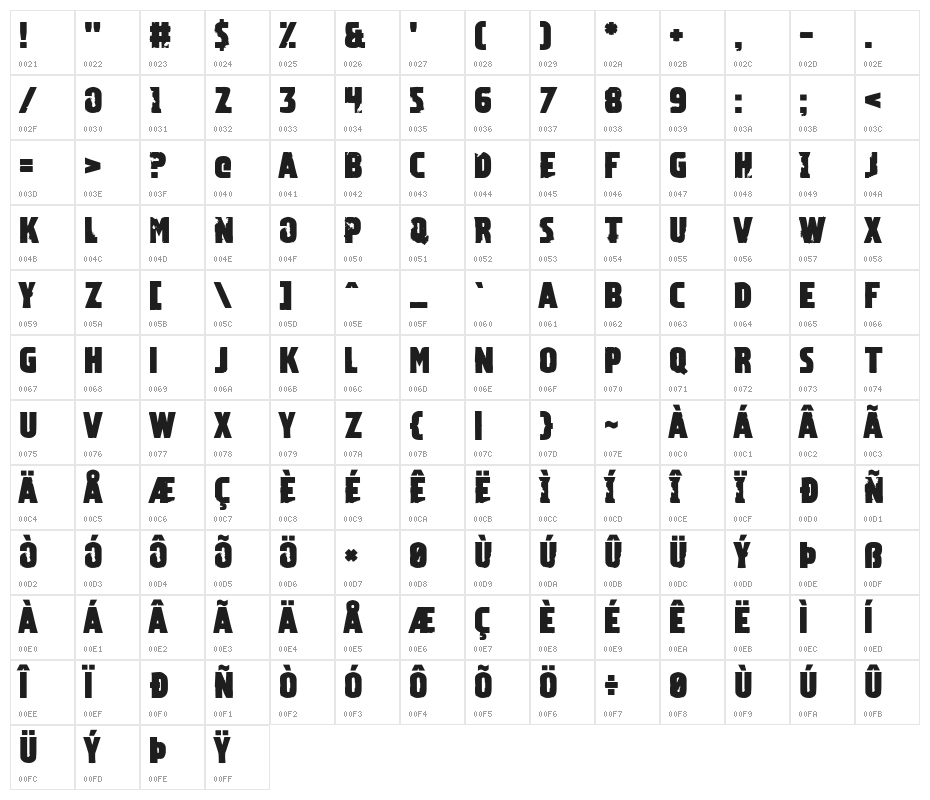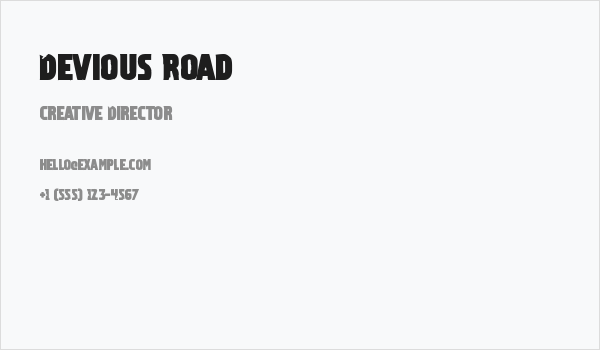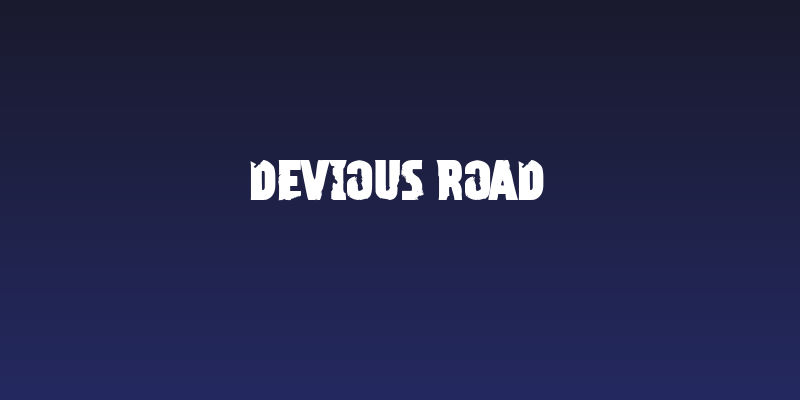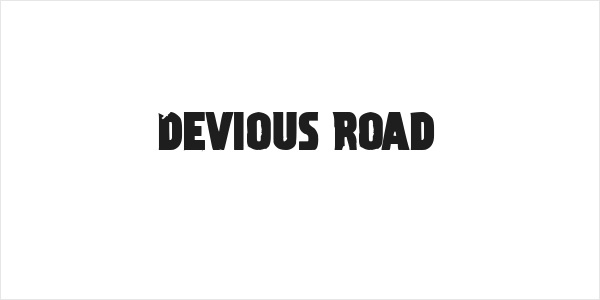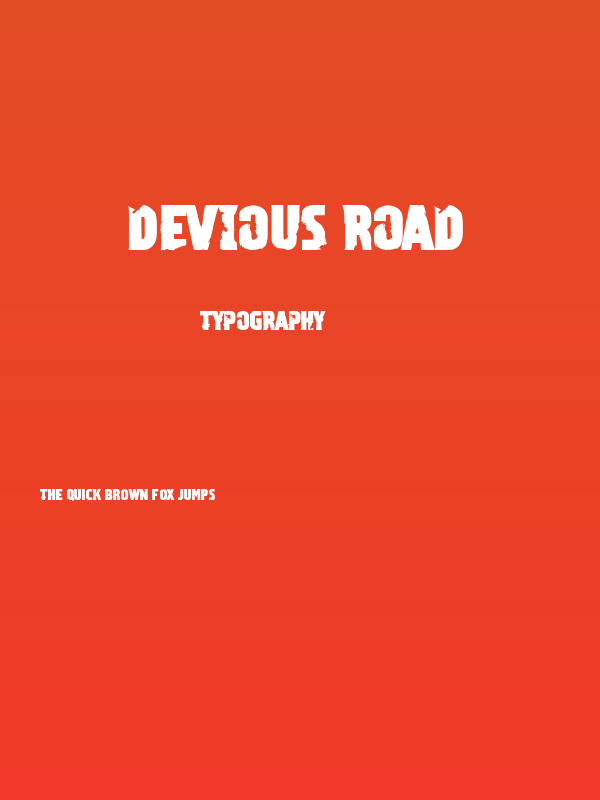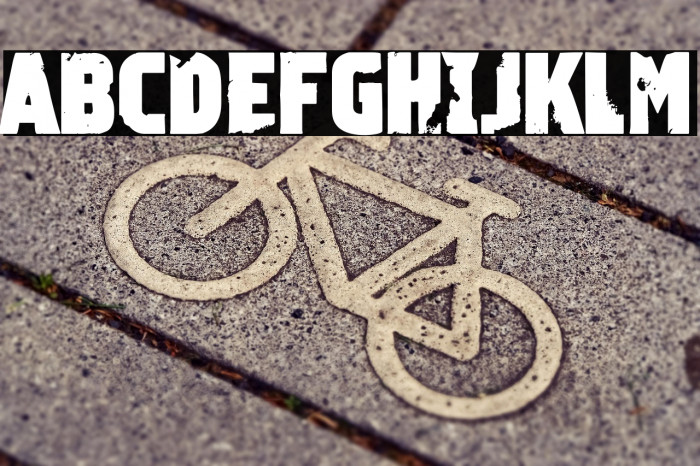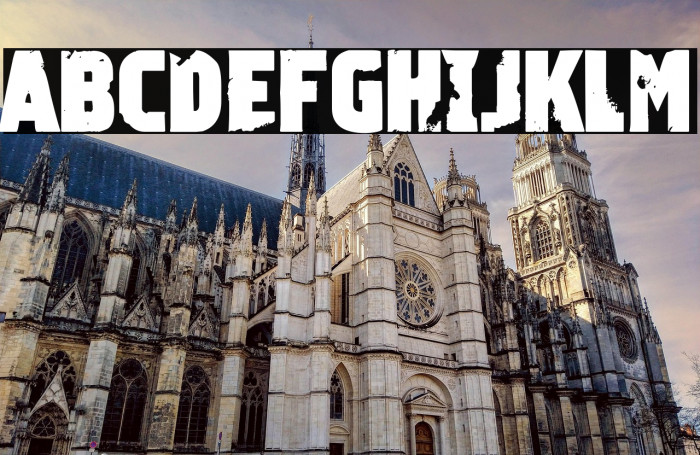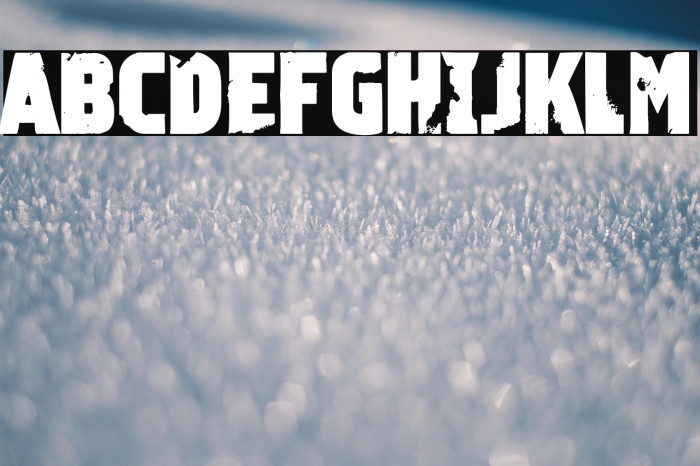
Devious Road Font
Devious Road Description
This font features a bold, distressed style with a rugged, worn appearance. The characters are heavily textured, giving them a gritty and edgy look. The uppercase and lowercase letters maintain a consistent weight, emphasizing a strong visual impact. The numbers and special characters follow the same distressed aesthetic, making the font suitable for designs that require a bold statement. The overall style is reminiscent of urban or grunge themes, with a touch of rebelliousness. The font's unique texture adds depth and character, making it ideal for projects that aim to capture attention and convey a sense of toughness or rawness.
| Overall Style | Grunge, Urban |
| Proposed Projects | Ideal for posters, album covers, streetwear branding, or any project needing a bold, edgy look. |